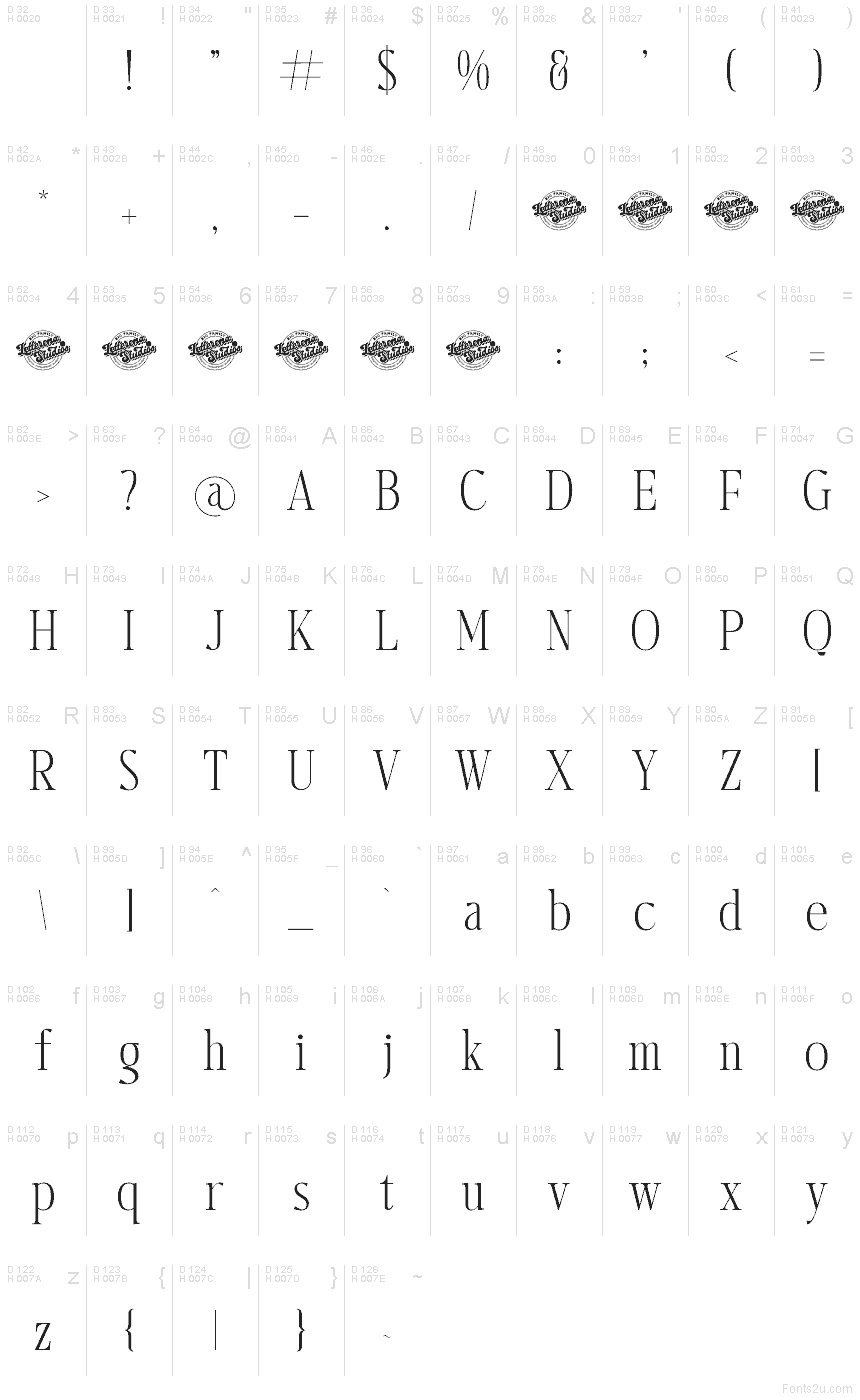
Harfterd DEMO VERSION
Harfterd font by Letterena Studios is a free serif font, more precisely a condensed one. The beauty of this font manifests itself in its unpretentious elegance and sophisticated classic appearance. With such a light, refined, and timeless typeface as this one, you will never have to worry again about the quality of your typography.
Let Harfterd surprise you when it comes to book covers, magazine titles, brochures headlines, and magazine covers. The condensed width makes it a great choice for packaging design ideas on products such as perfume bottles or lipstick tubes.